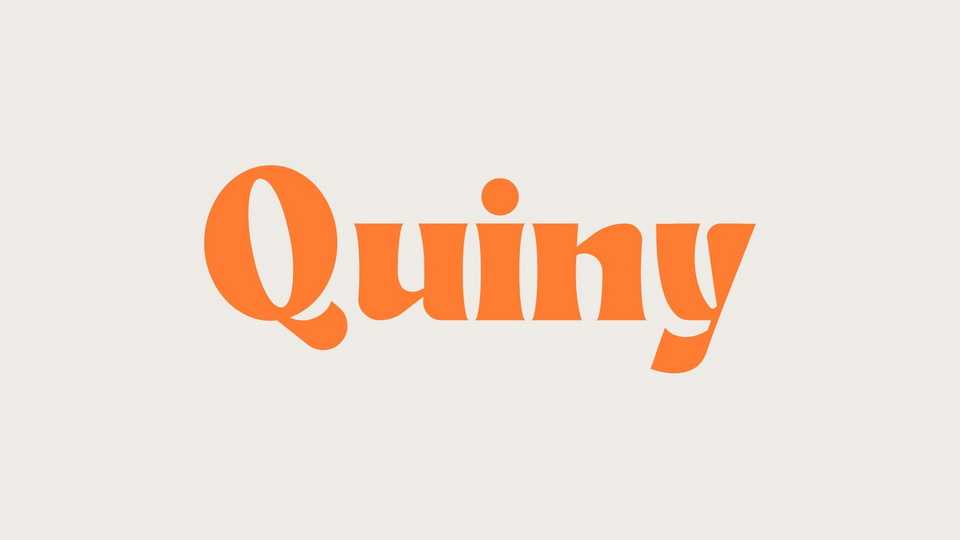
Download Quiny font, a playful display typeface built with bold and curvy characters. Quiny is perfect if you need fun for your projects.
Designer: Nestypefont